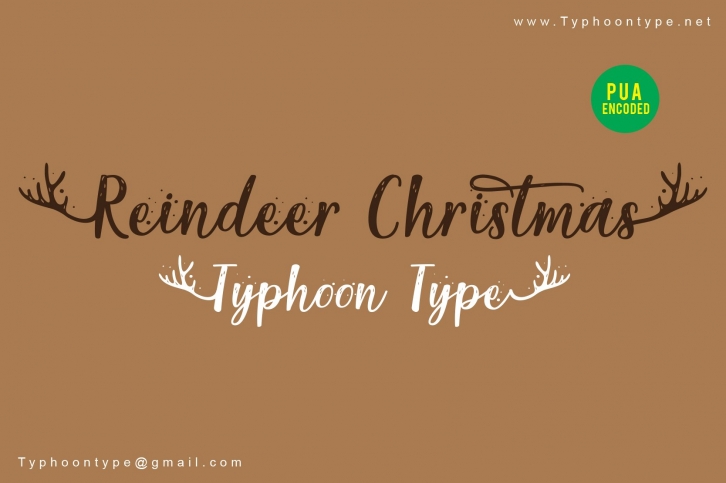
Reindeer Christmas font Download
Reindeer Christmas This Font perfect for logos, name tag, advertising, product packaging, clothing, social media & greeting cards.
Type ( before word to get beginning swash and Type ) after word to get the ending swash. Example : (Reindeer Christmas)